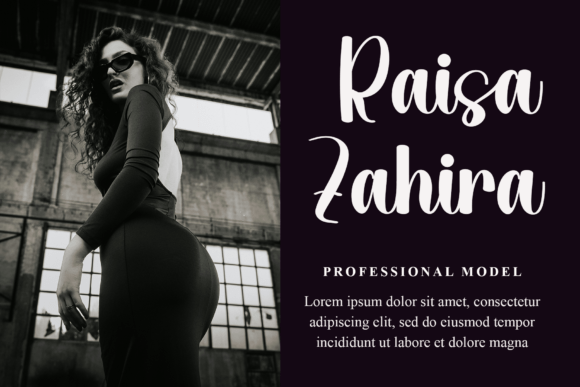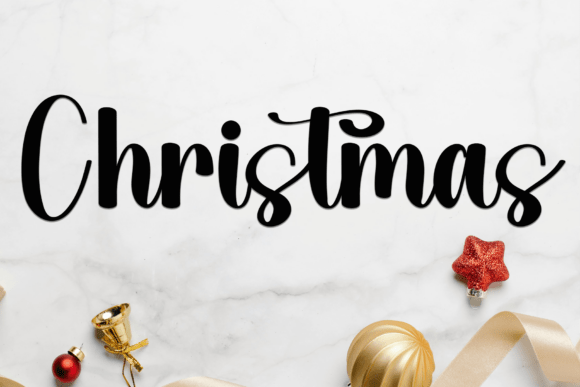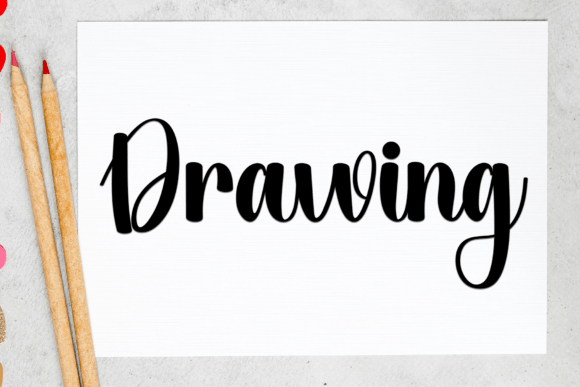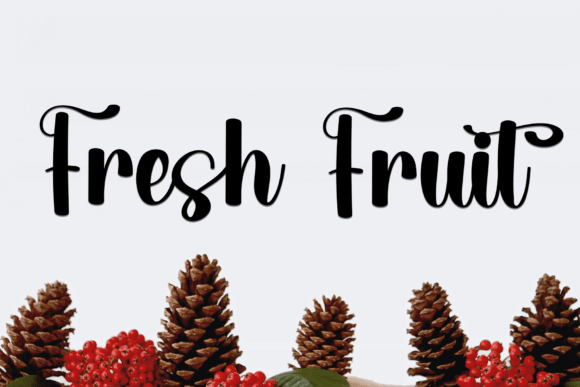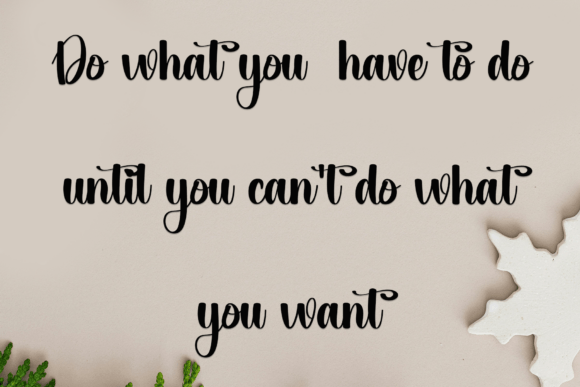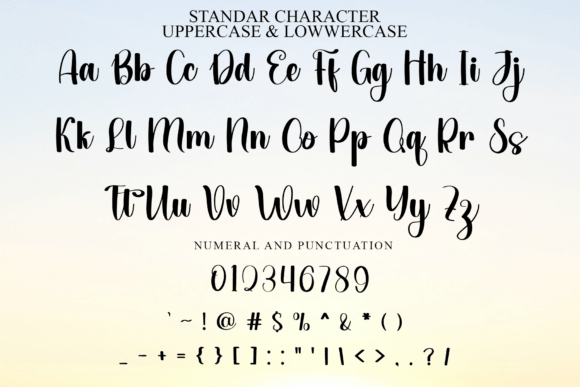
Introduction to September Handmade Font
September Handmade is a casual and creative font that exudes warmth and friendliness.
Key Features of September Handmade Font
Why Choose September Handmade Font?